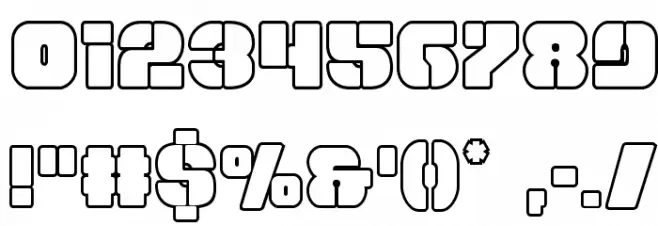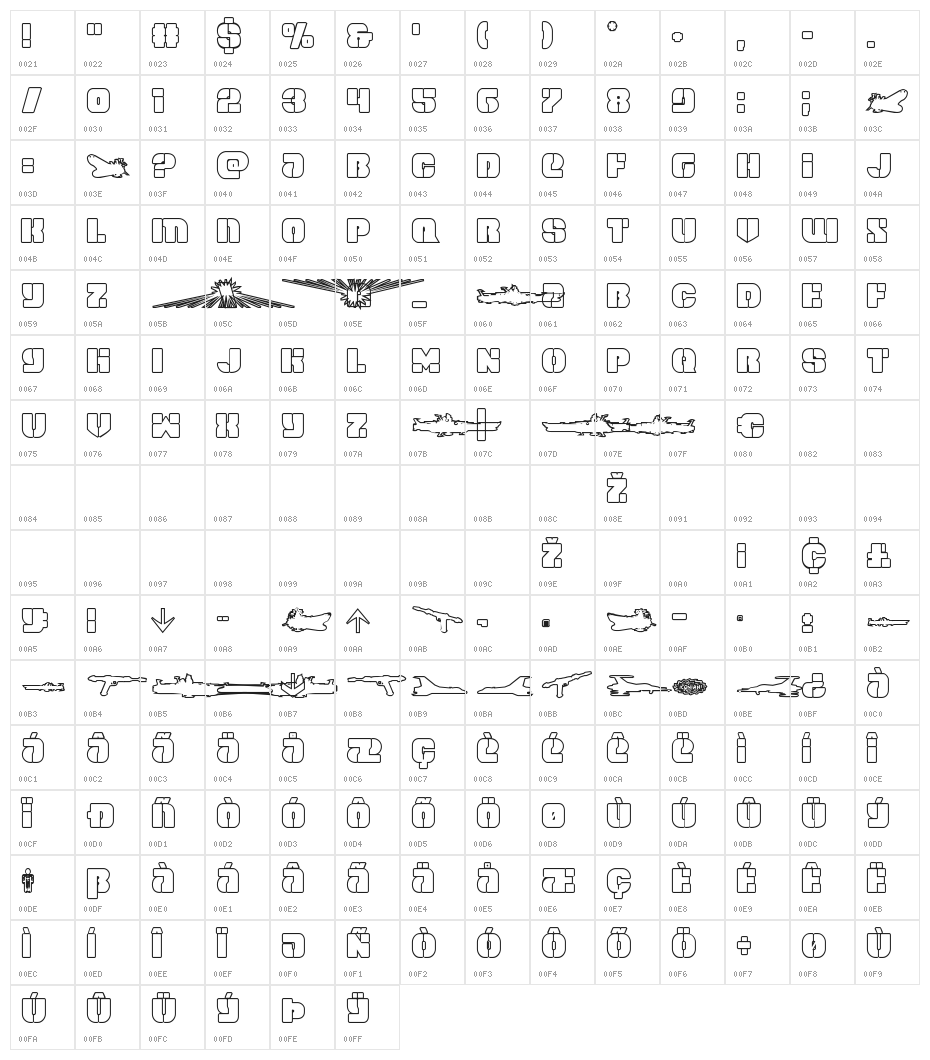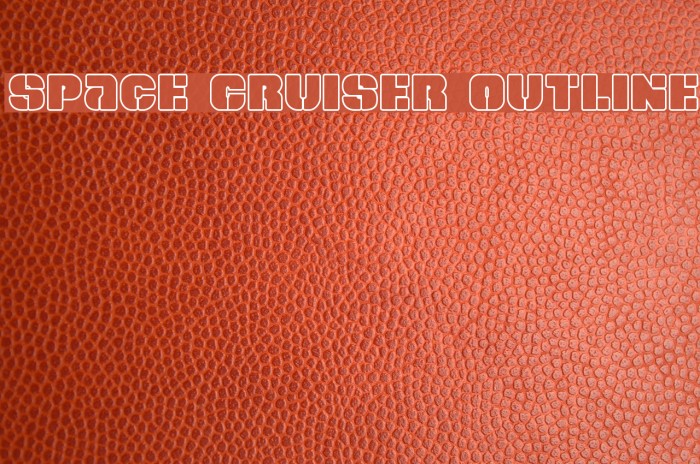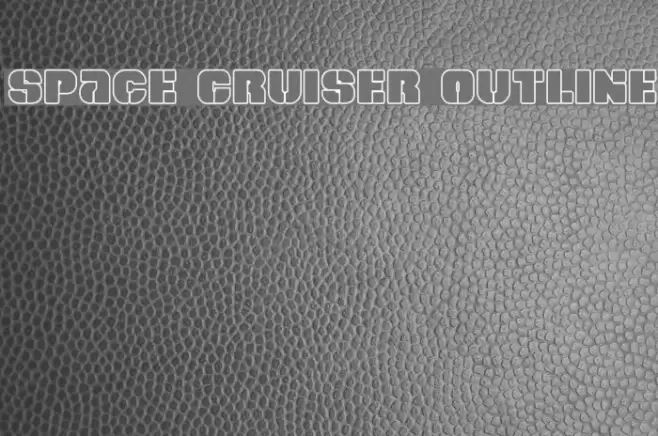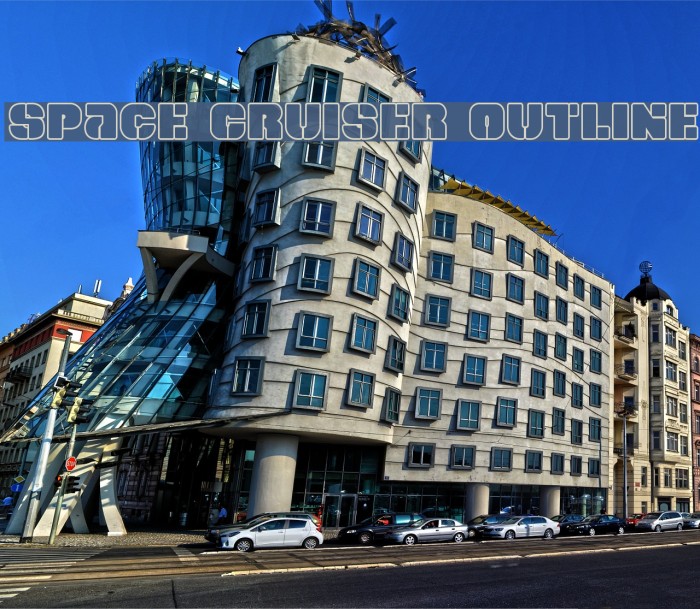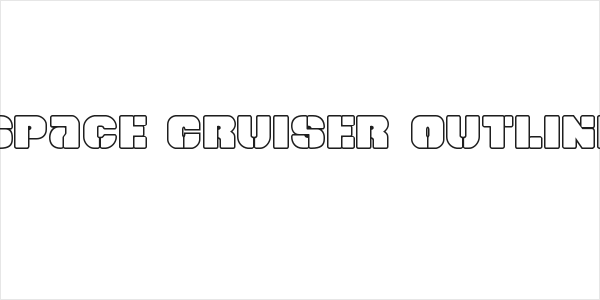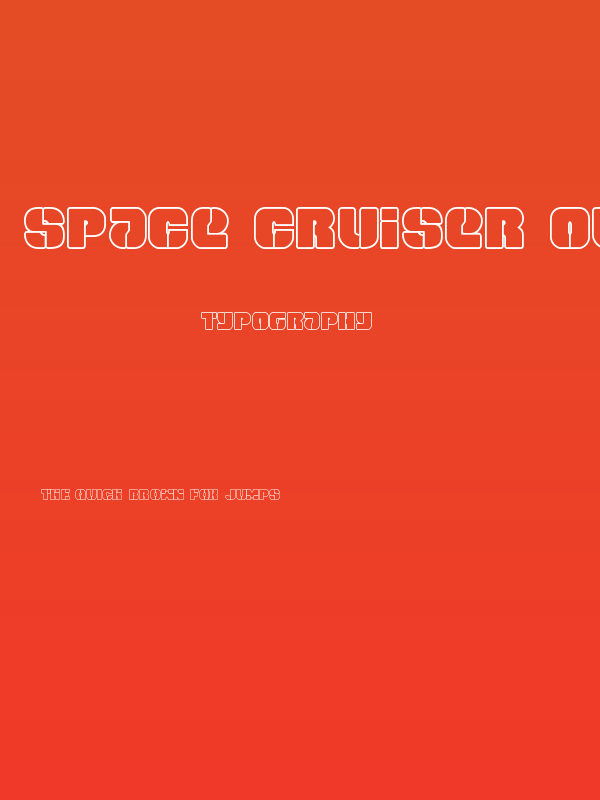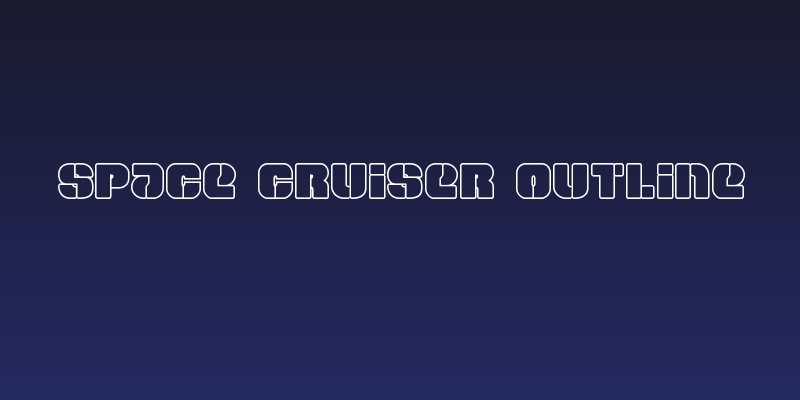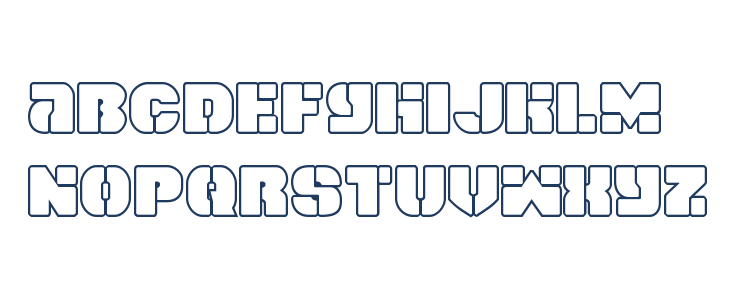
Space Cruiser Outline Font
Space Cruiser Outline Description
This font features a bold, futuristic outline style with geometric shapes and rounded edges. The characters are designed with a consistent thickness, creating a uniform and cohesive look. The uppercase and lowercase letters maintain a similar height, giving the font a monospaced appearance. The numbers and special characters are crafted to match the overall aesthetic, making them easily recognizable and visually appealing. The font's unique style is reminiscent of retro-futuristic designs, making it ideal for projects that require a modern yet nostalgic touch.
| Overall Style | Futuristic, Retro |
| Proposed Projects | Ideal for sci-fi themed posters, video game titles, branding for tech companies, and futuristic event invitations. |